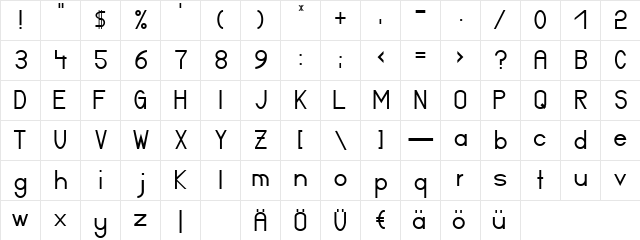
Certified Regular
Design Context for Certified Typeface
Certified takes a measured approach to typography — its balanced proportions and neutral character make it a reliable workhorse for both digital and print work.
Pro Tip: Pair Certified with a font of contrasting weight or personality to build a more expressive typographic hierarchy.